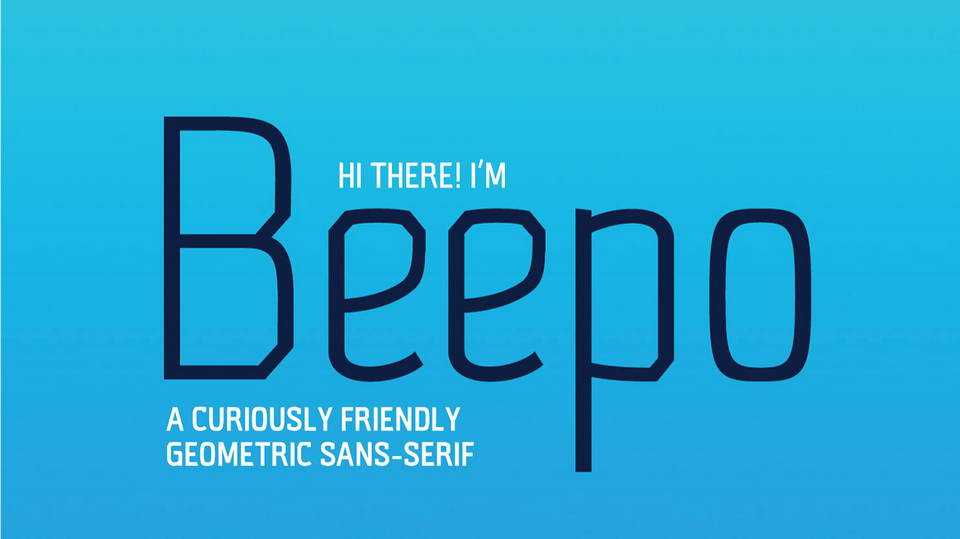
Download Beepo font family, a curiously friendly geometric sans serif typeface that features tall, narrow characters, consistent angles and corners, a large x-height, and smooth curves to offset the sharp design system with some humanist personality.
Designer: Alan Parker